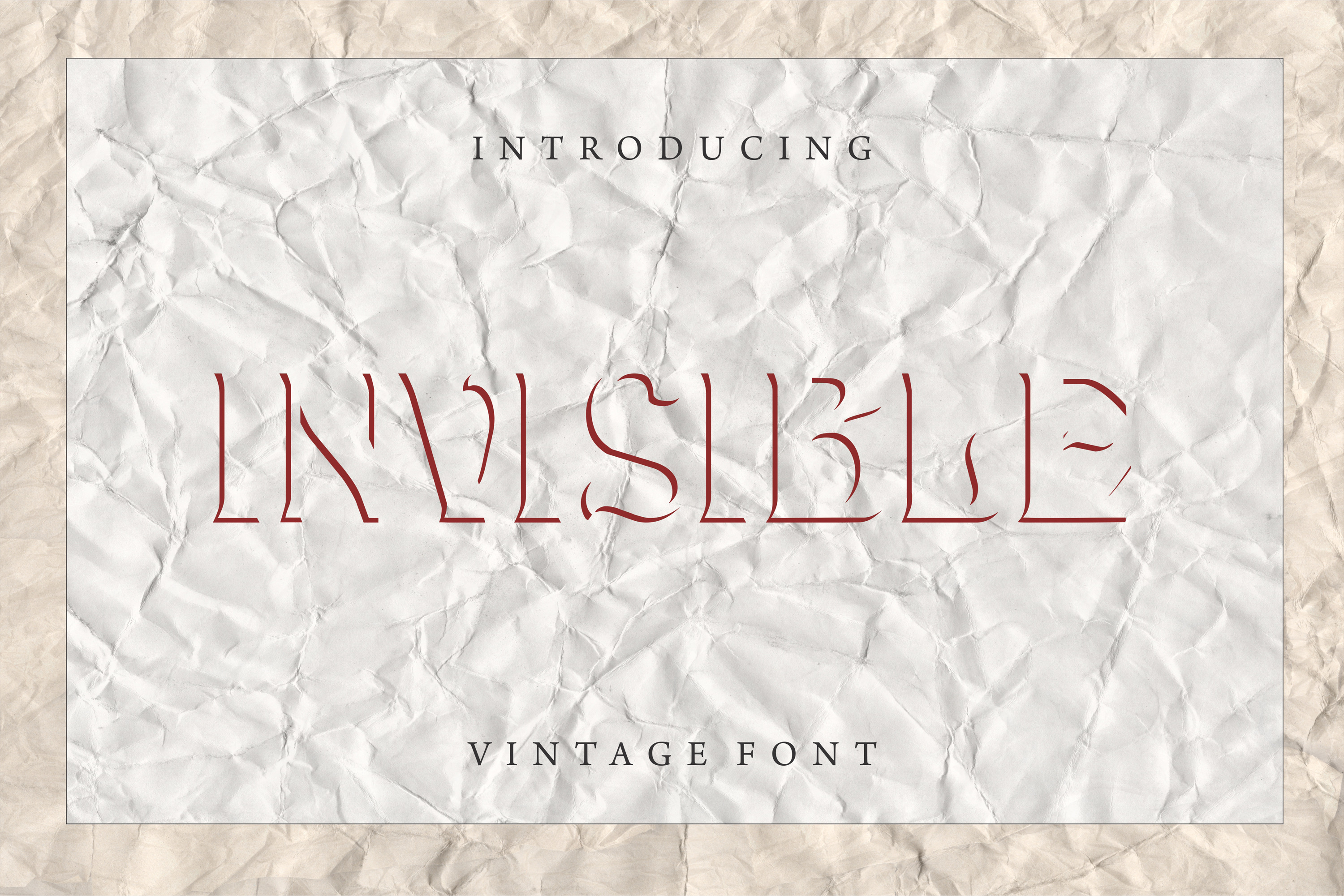
Invisible - Modern Display Font
New attractive typeface has been created especially for you. This font is invisible as it represents only a shadow-like contour outline of the letter making the visually effect of 3D Please refer to the list of possible uses we have created to help designers with inspiration and add your idea in comments section below.